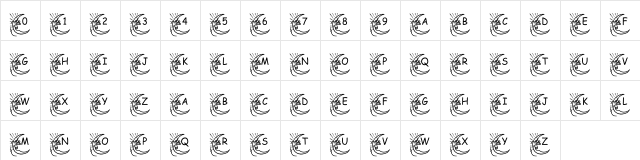
pf_old_man_moon1 Regular Font Preview
pf_old_man_moon1 Regular
Design Context for pf_old_man_moon1 Typeface
pf_old_man_moon1 is a composed and adaptable typeface that performs quietly and consistently across a wide range of design contexts.